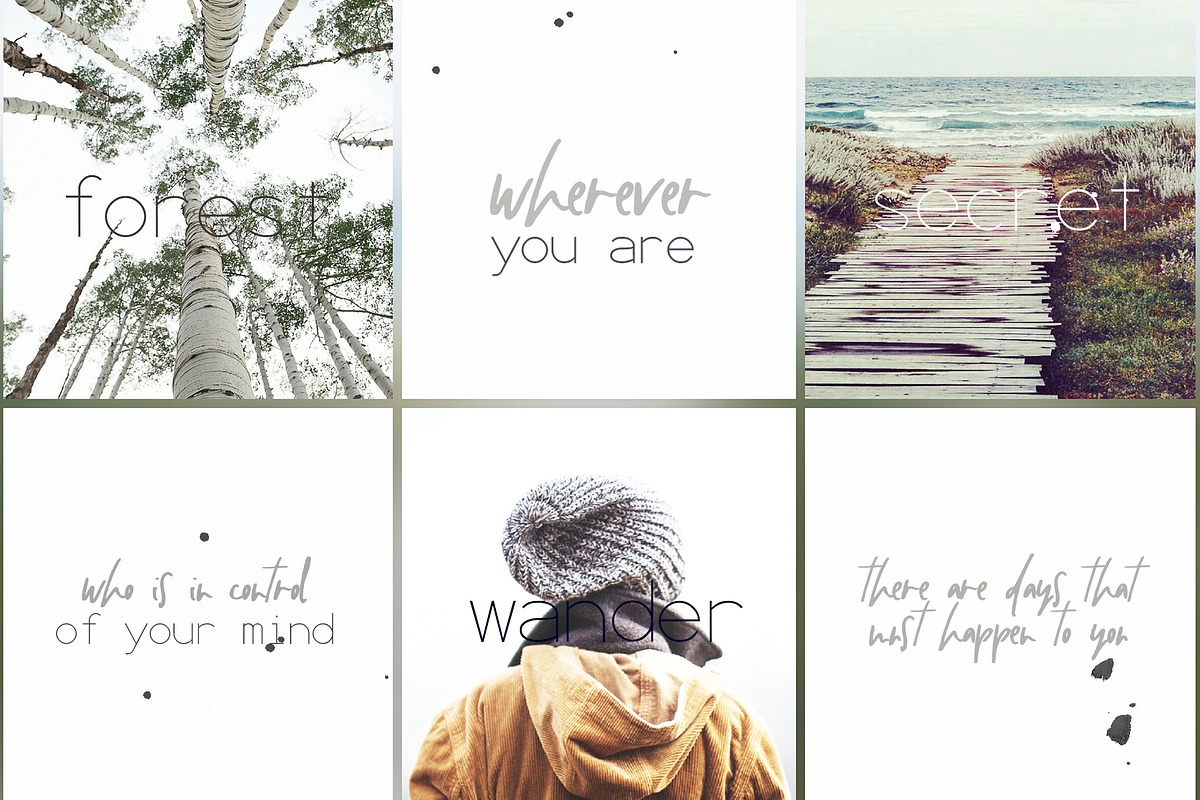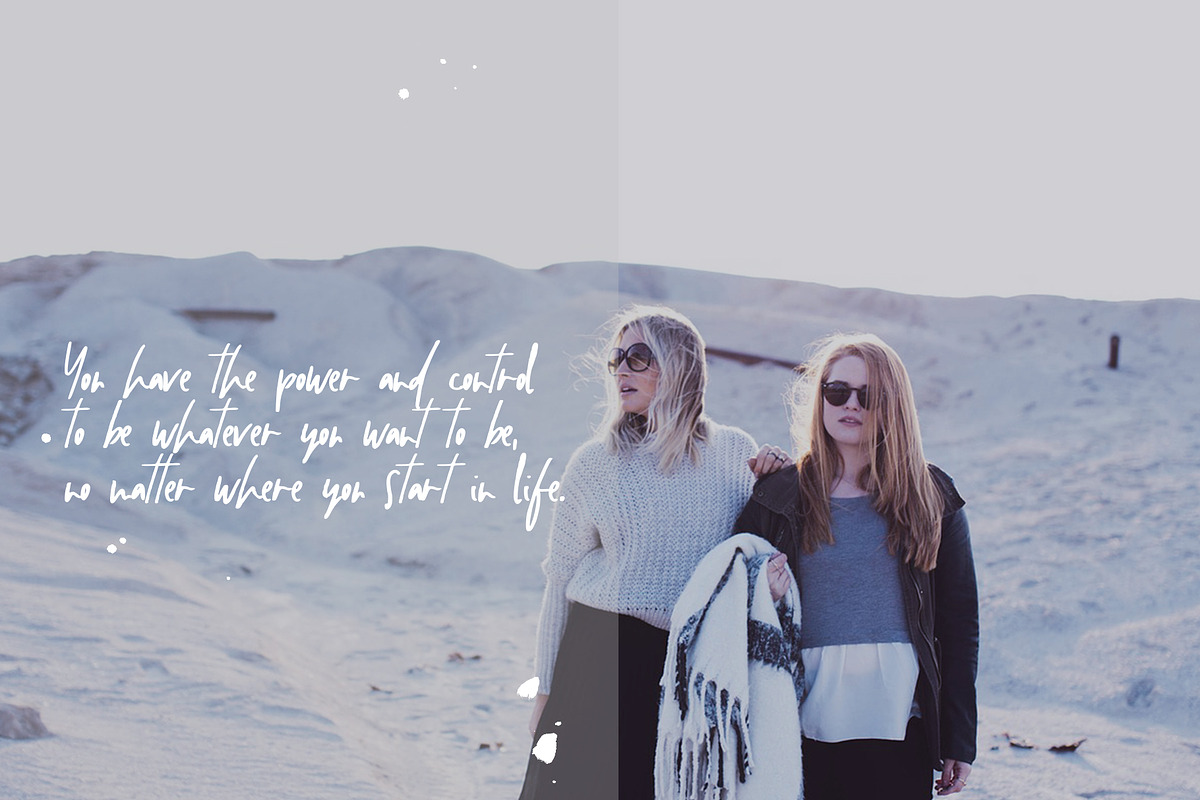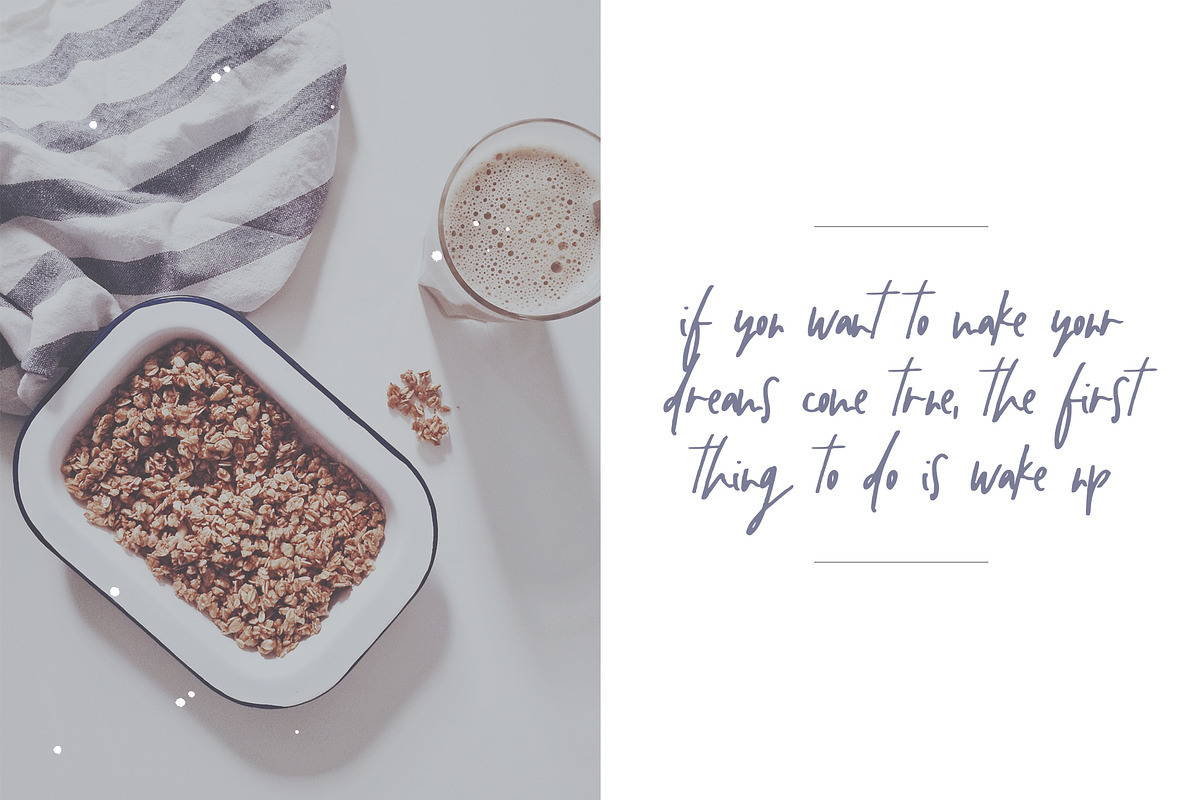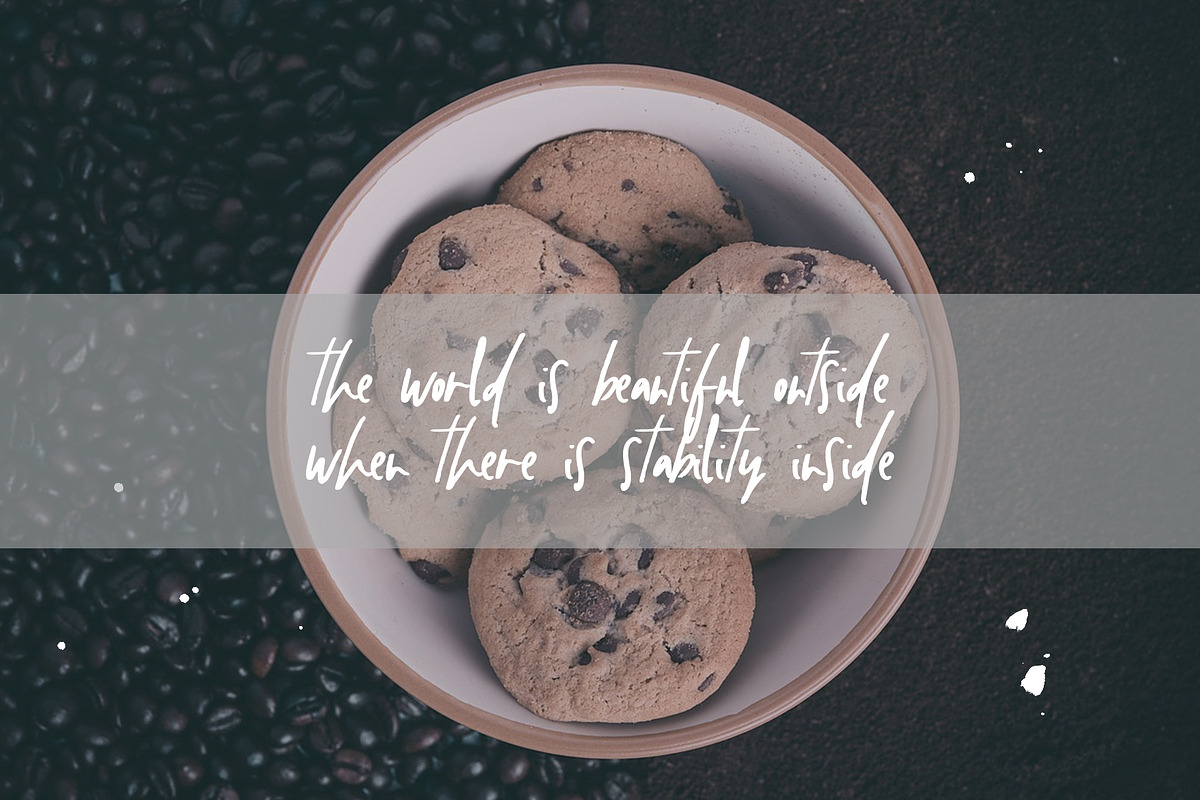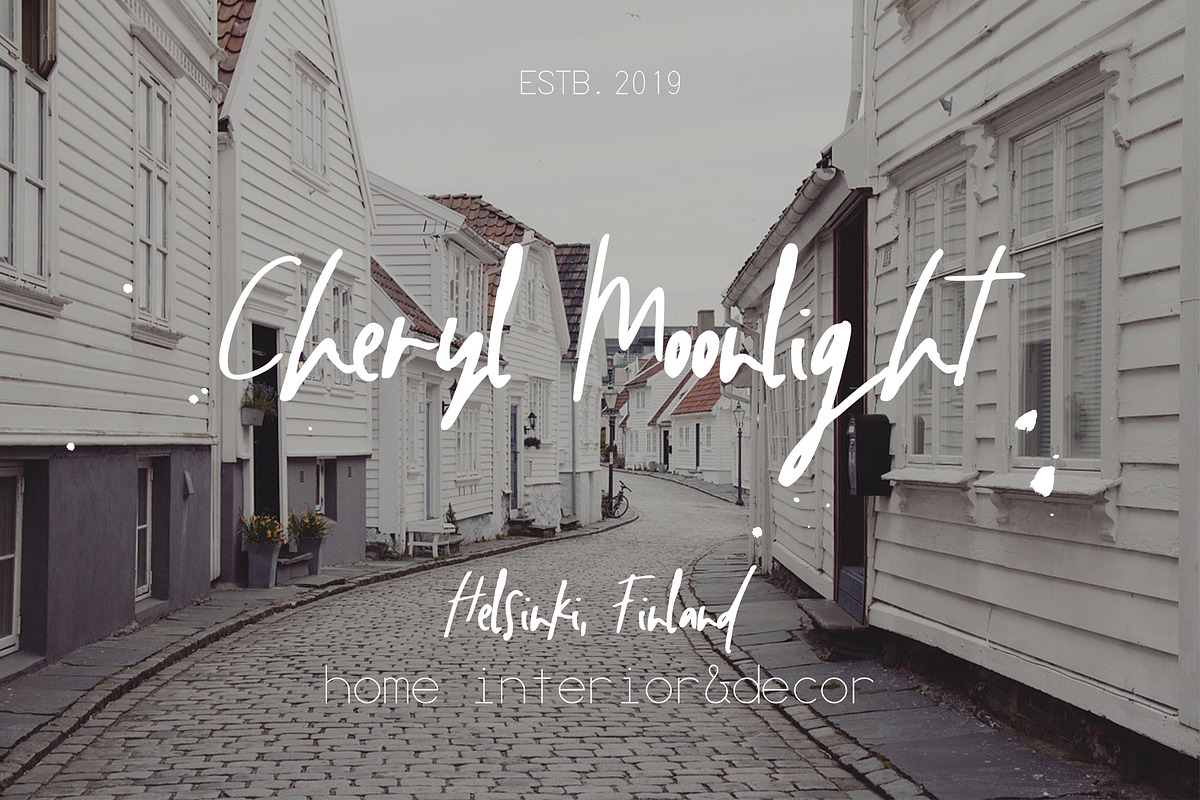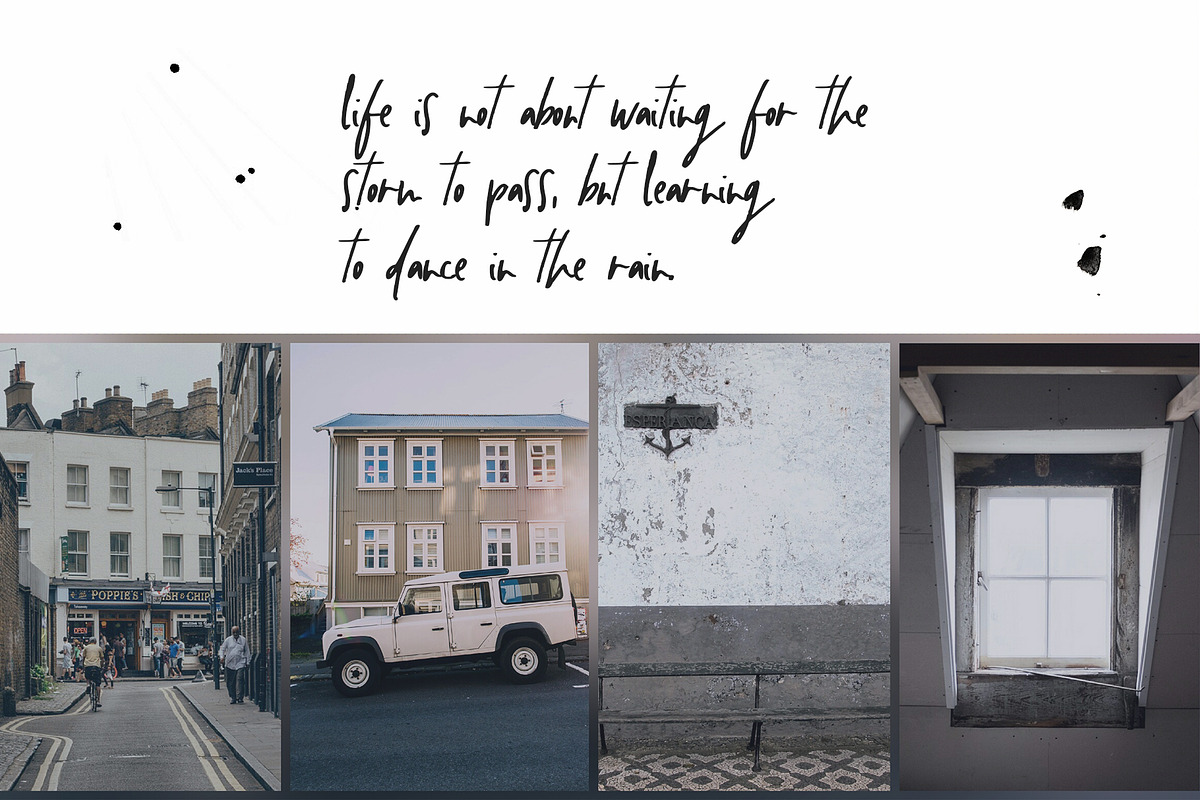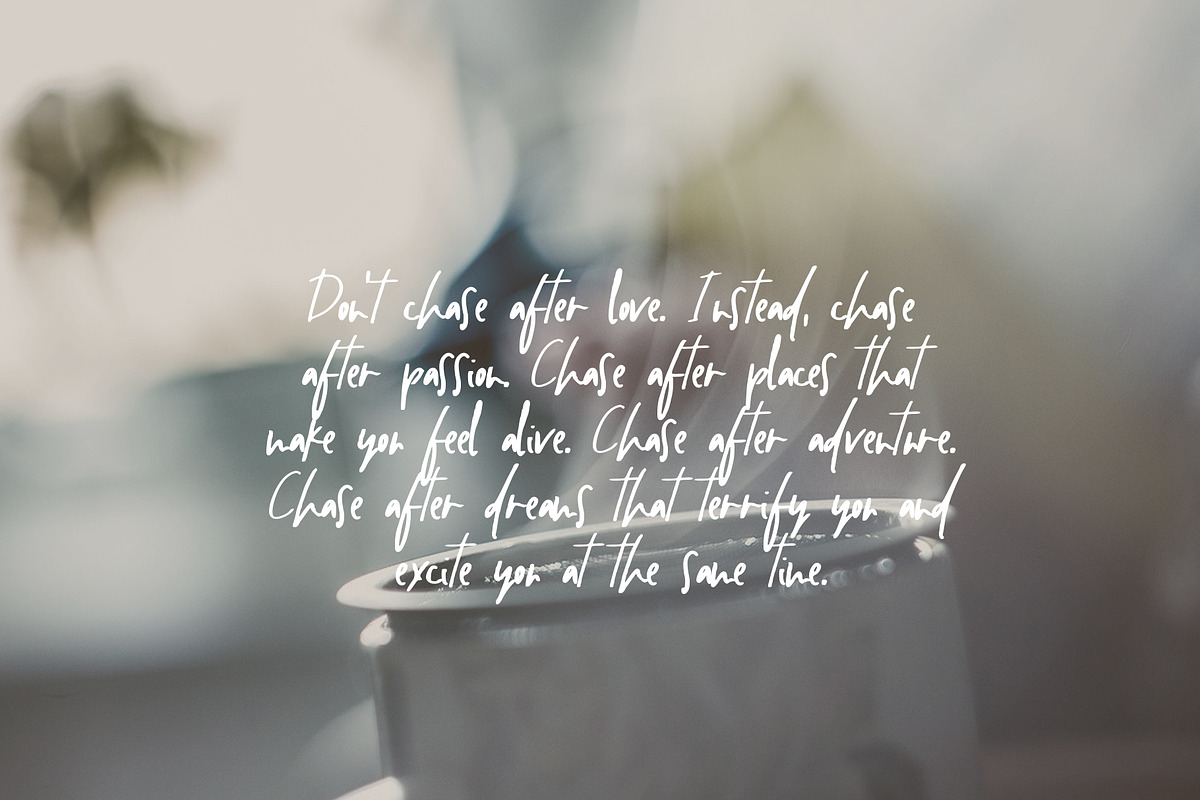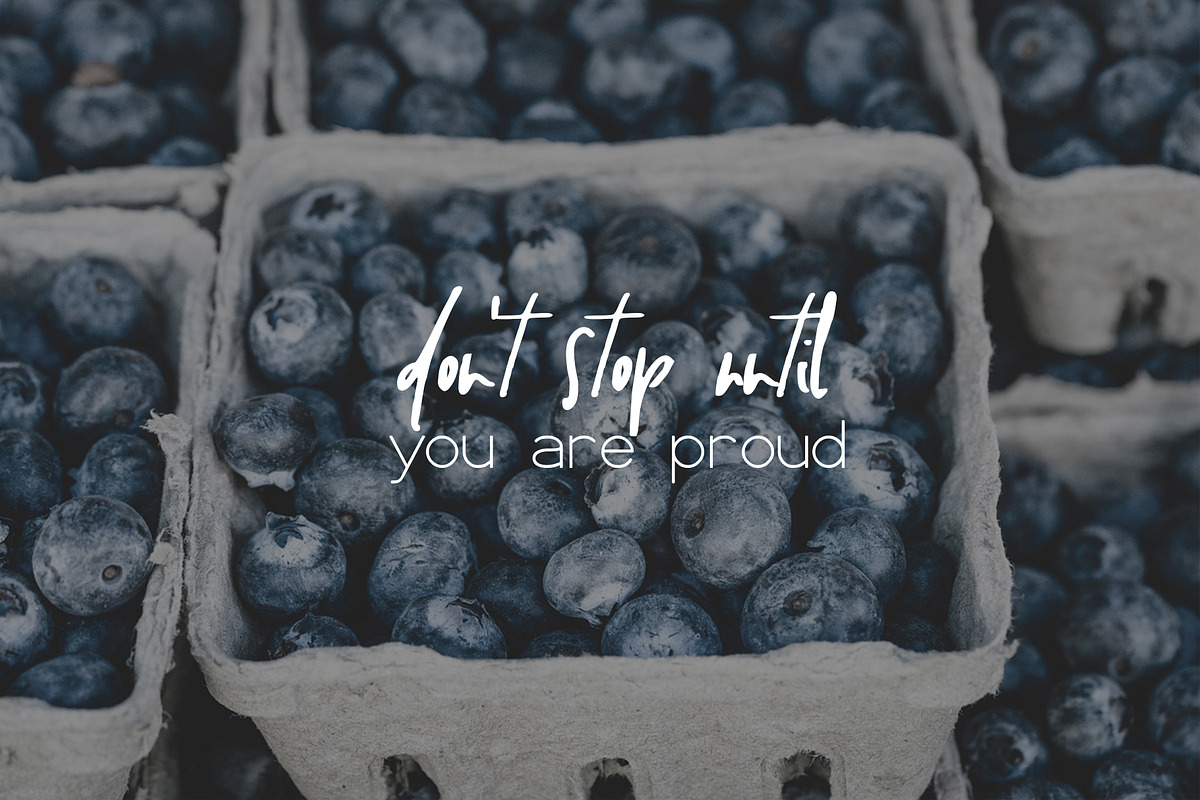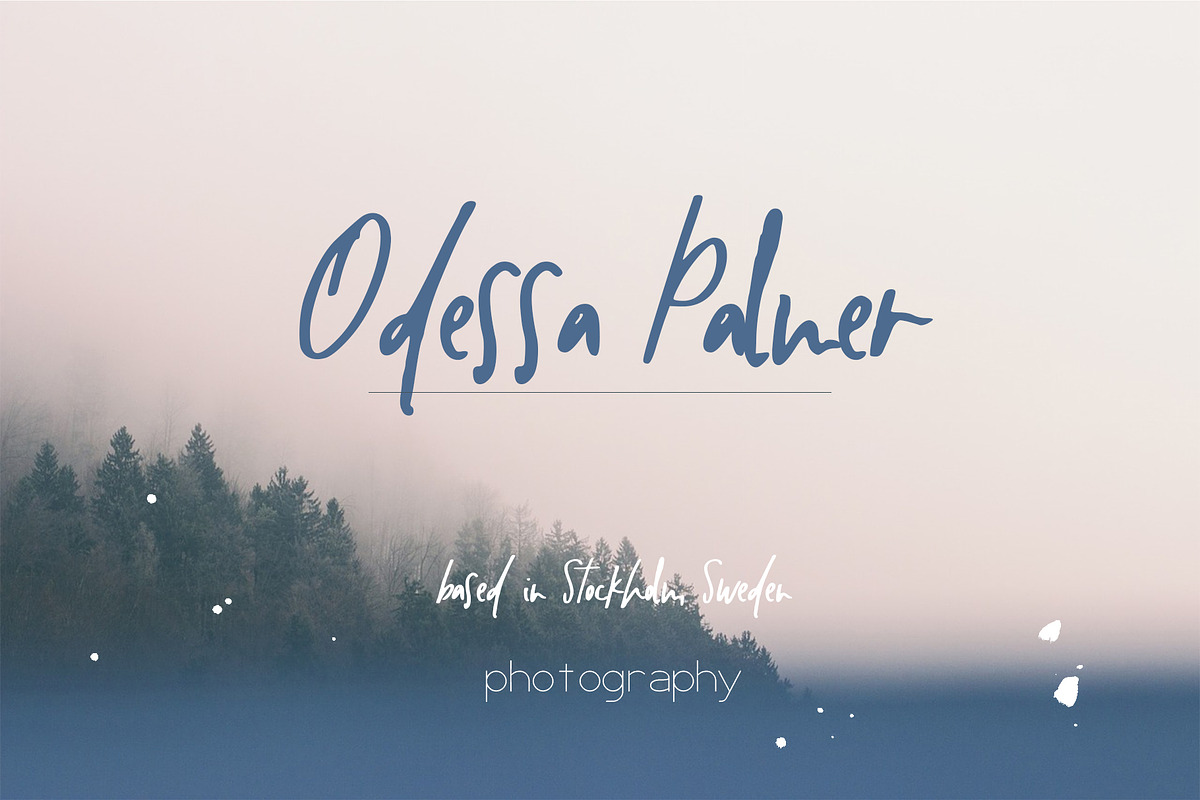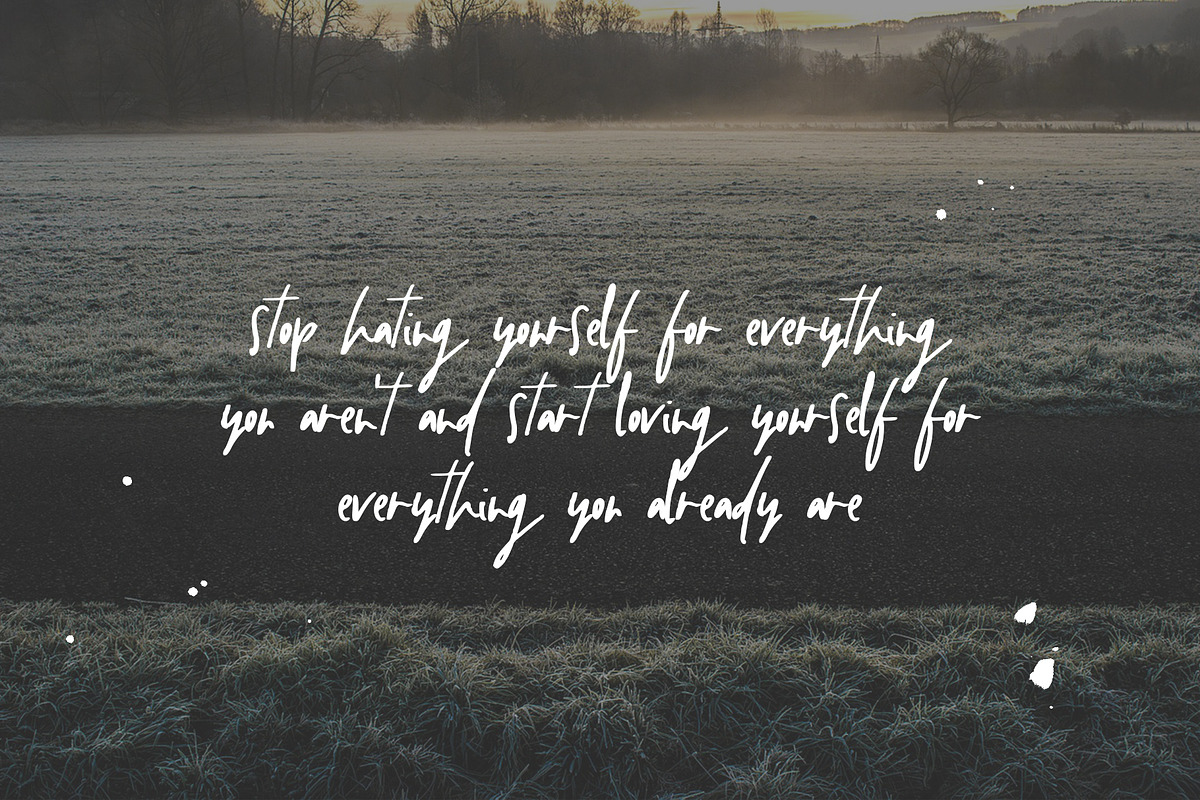
Wincior Font
Introducing Wincior, a gorgeous unique handwritten font.💗 Perfect for any calligraphic and logo designs, wedding and birthday invitations.
Wincior font contains upper & lowercase characters, full set of punctuation and numerals.